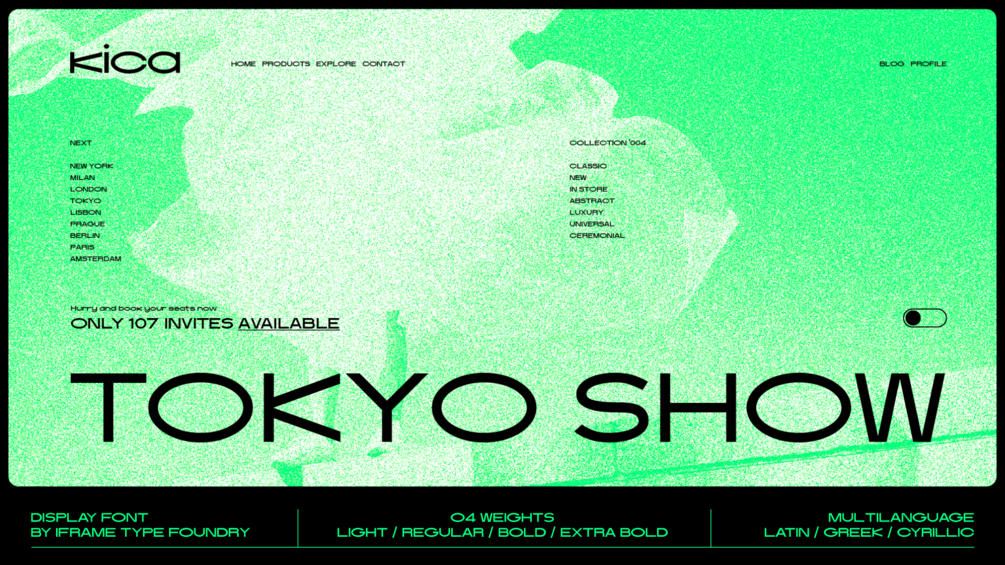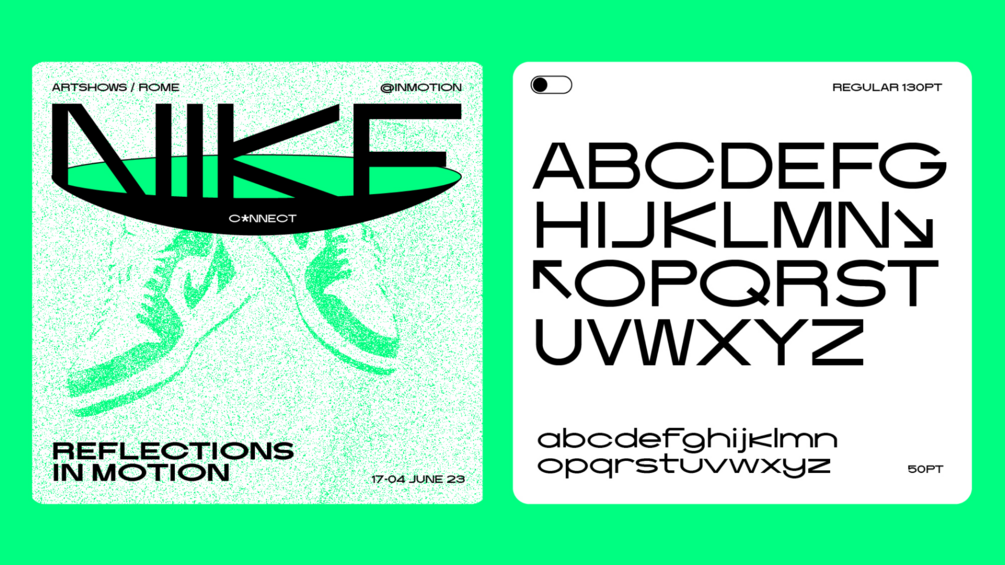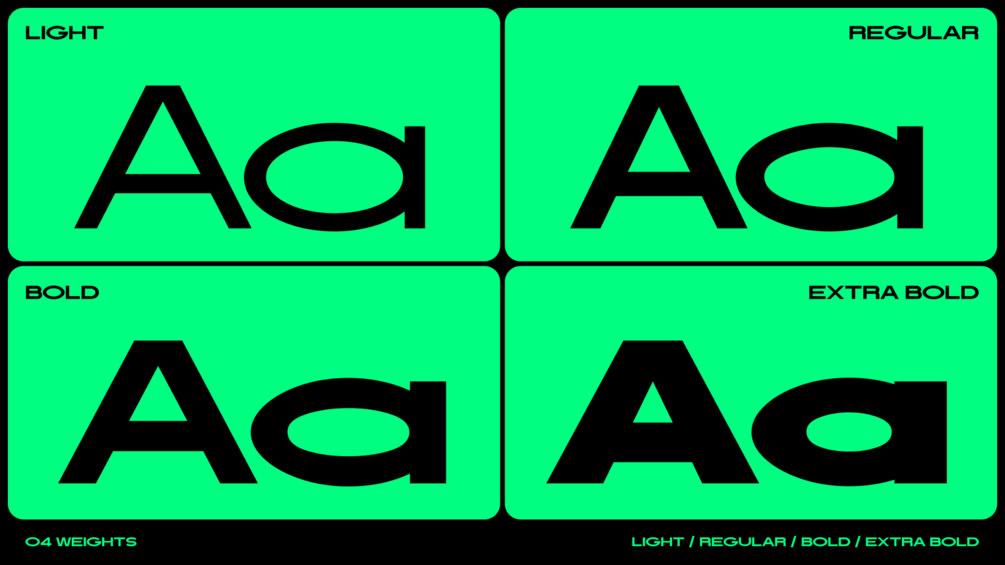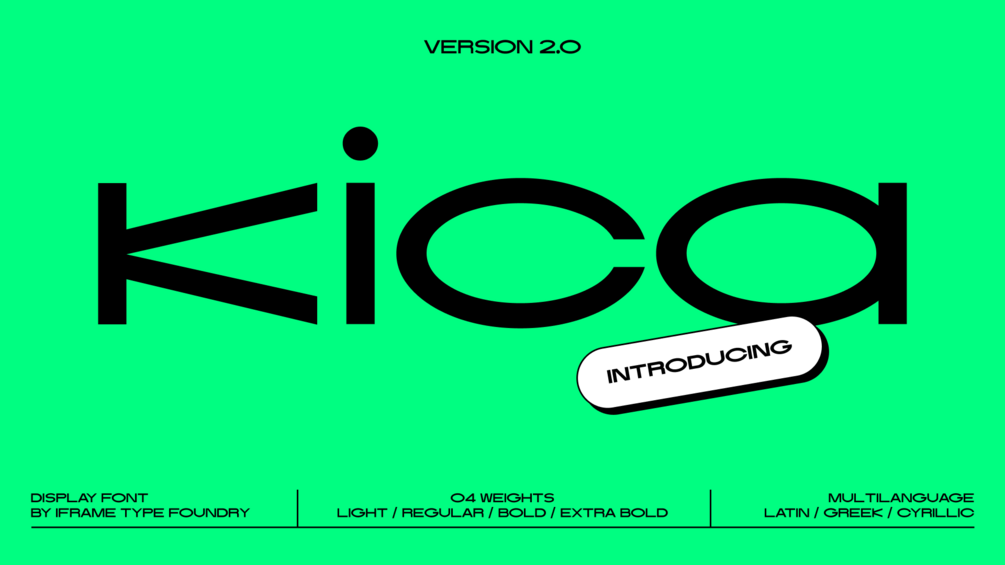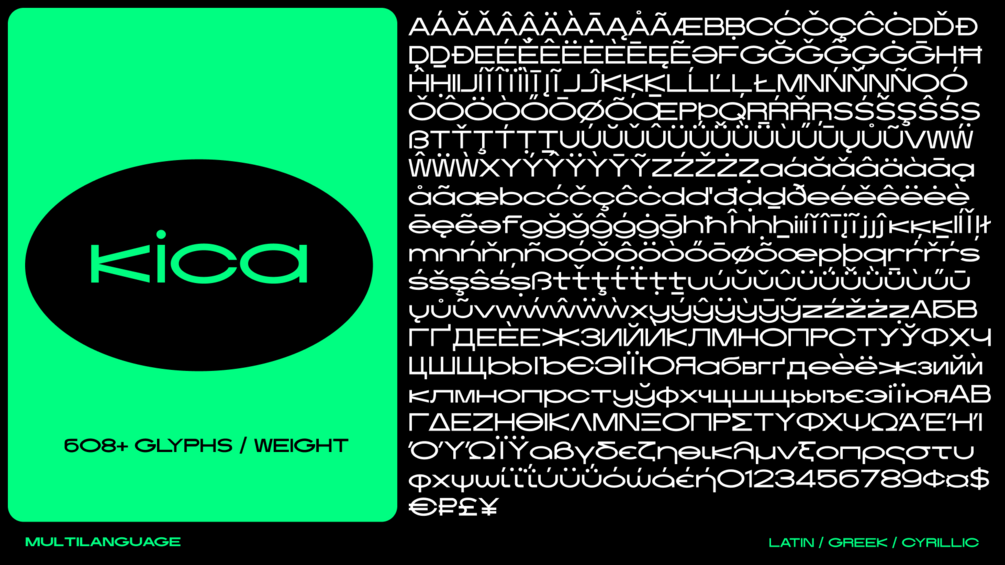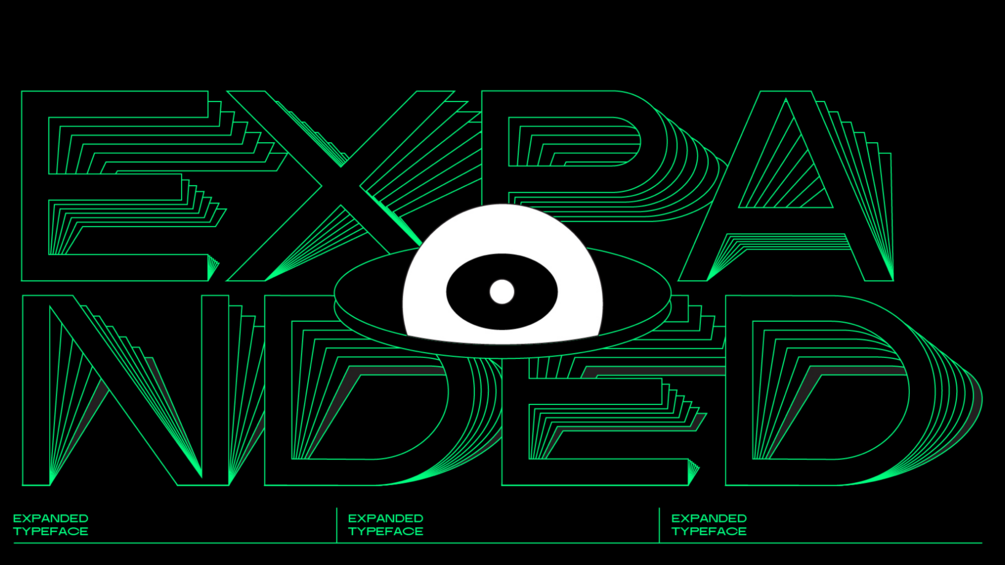
Kica Display Font Family - Version 2.0
Kica is a modern display typeface that is characterized by its clean lines, bold strokes, and geometric shapes. This typeface was designed with the intention of creating a strong visual impact and capturing attention.
- 4 weights (Light, Regular, Bold, Extra Bold)
- 608 glyphs
- Character set A-Z
- Uppercase & Lowercase
- Numerals & Punctuation
- Multilingual
- Language support: Latin, Greek, Cyrillic
Kica is a stylish and modern typeface that is perfect for creating eye-catching headlines, logos, and other graphic designs. Its bold, confident appearance is sure to make a lasting impression and enhance the visual impact of any project.